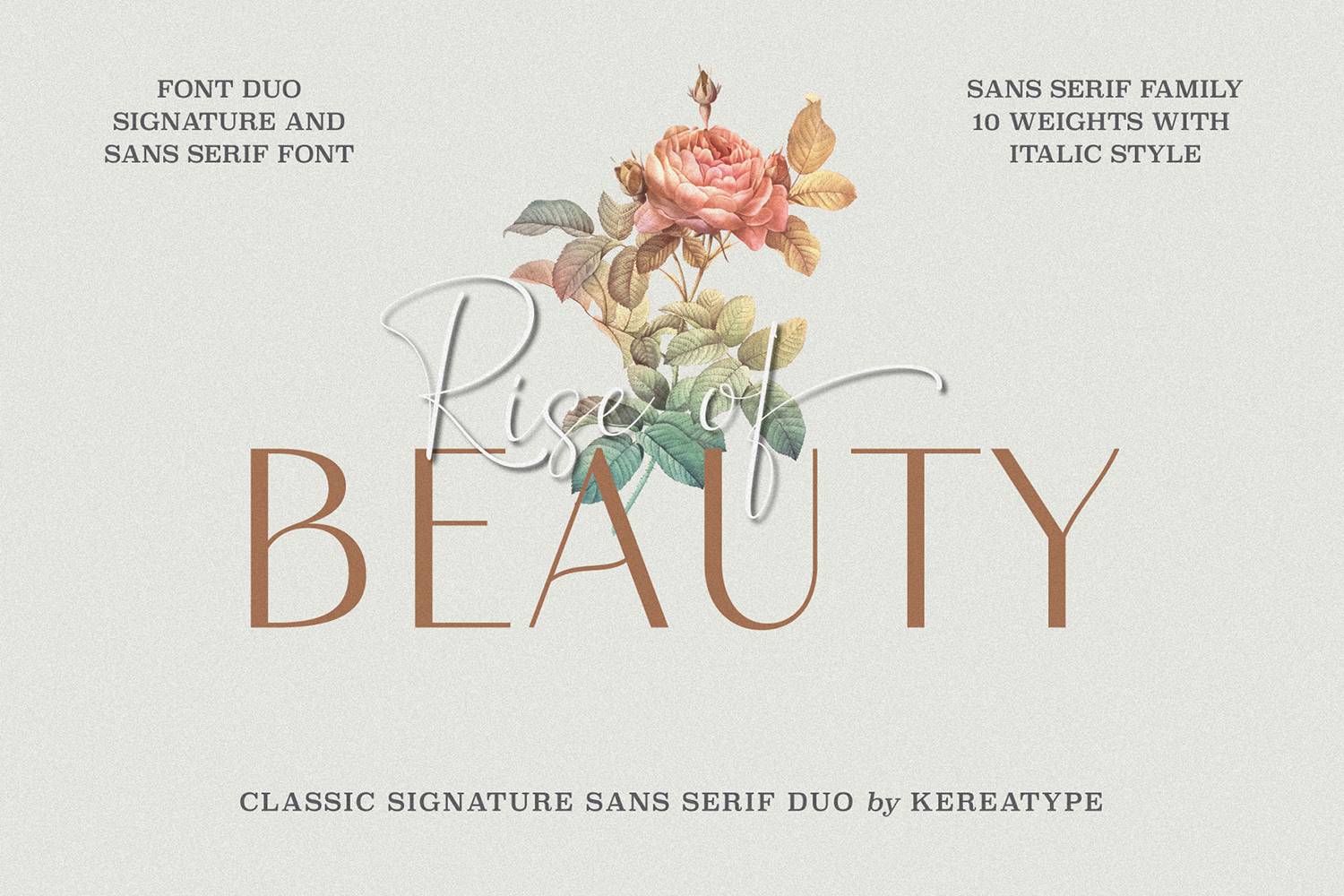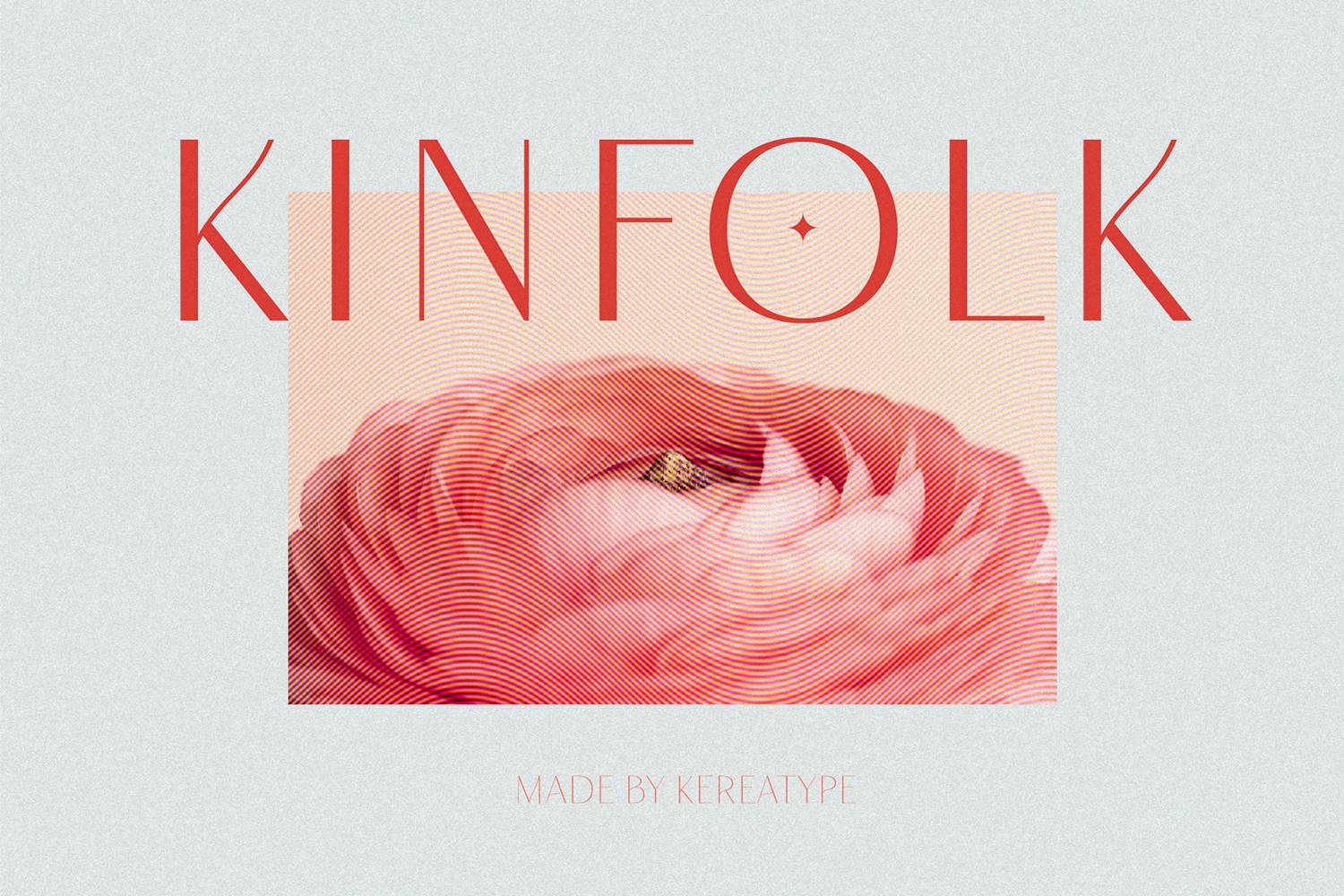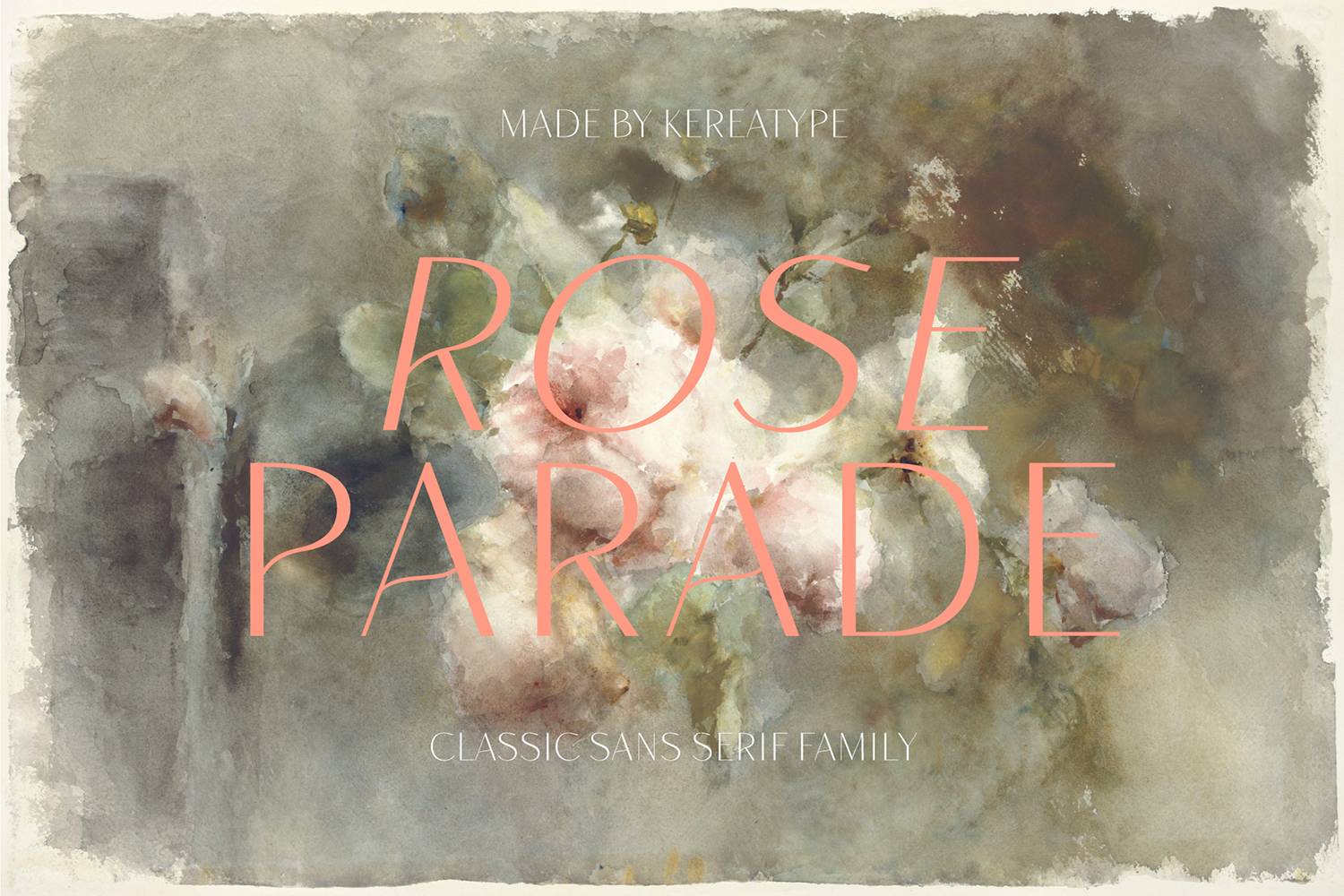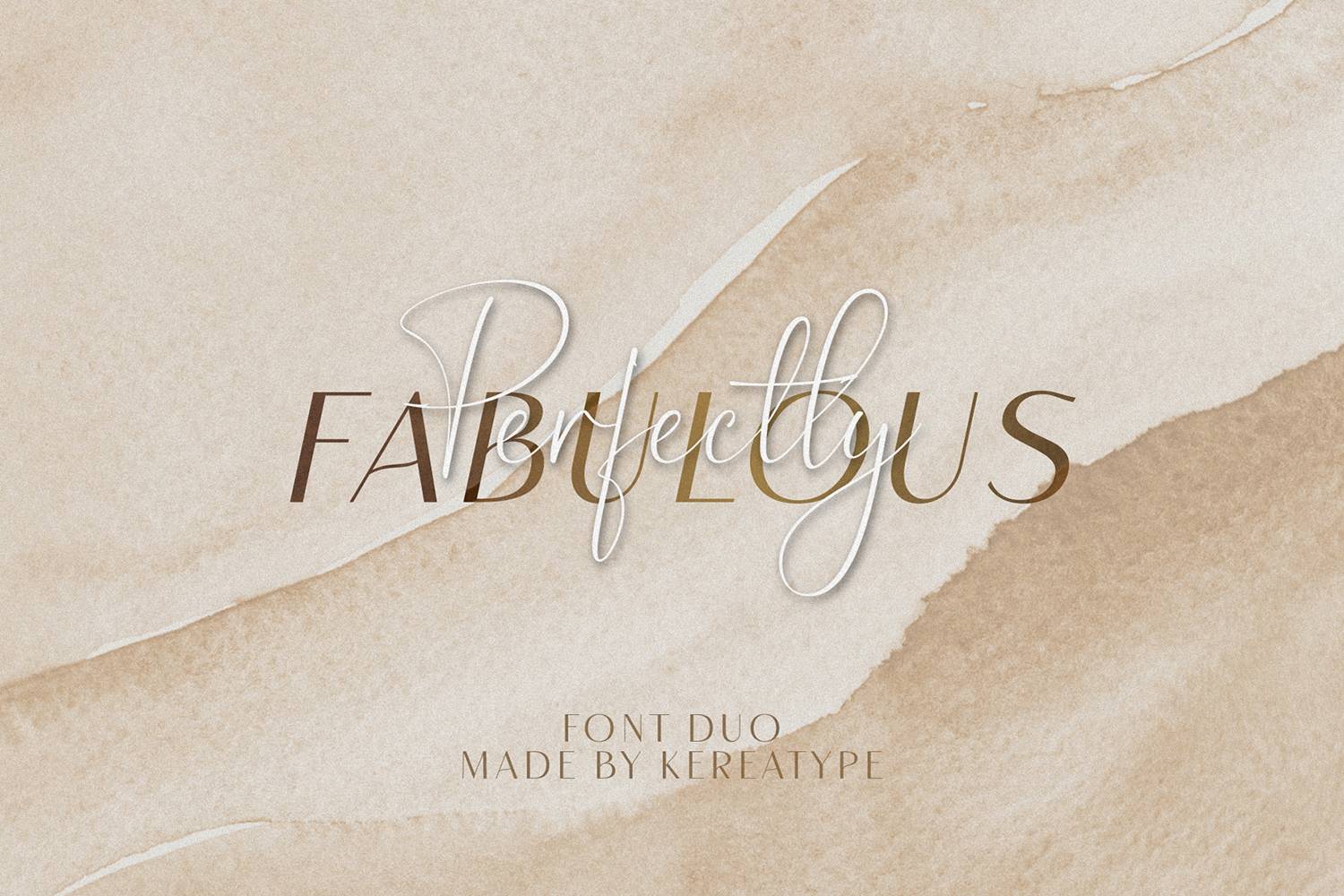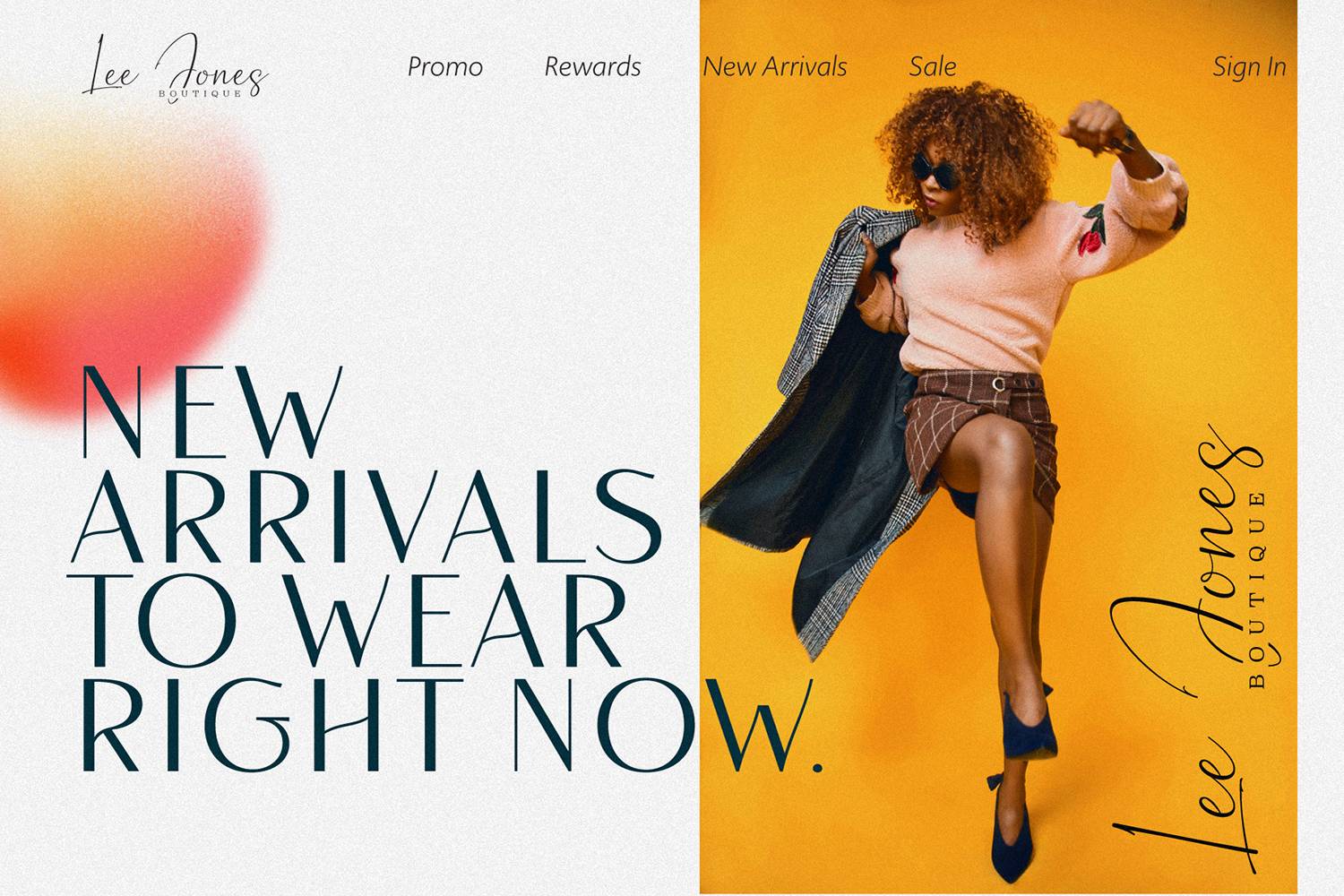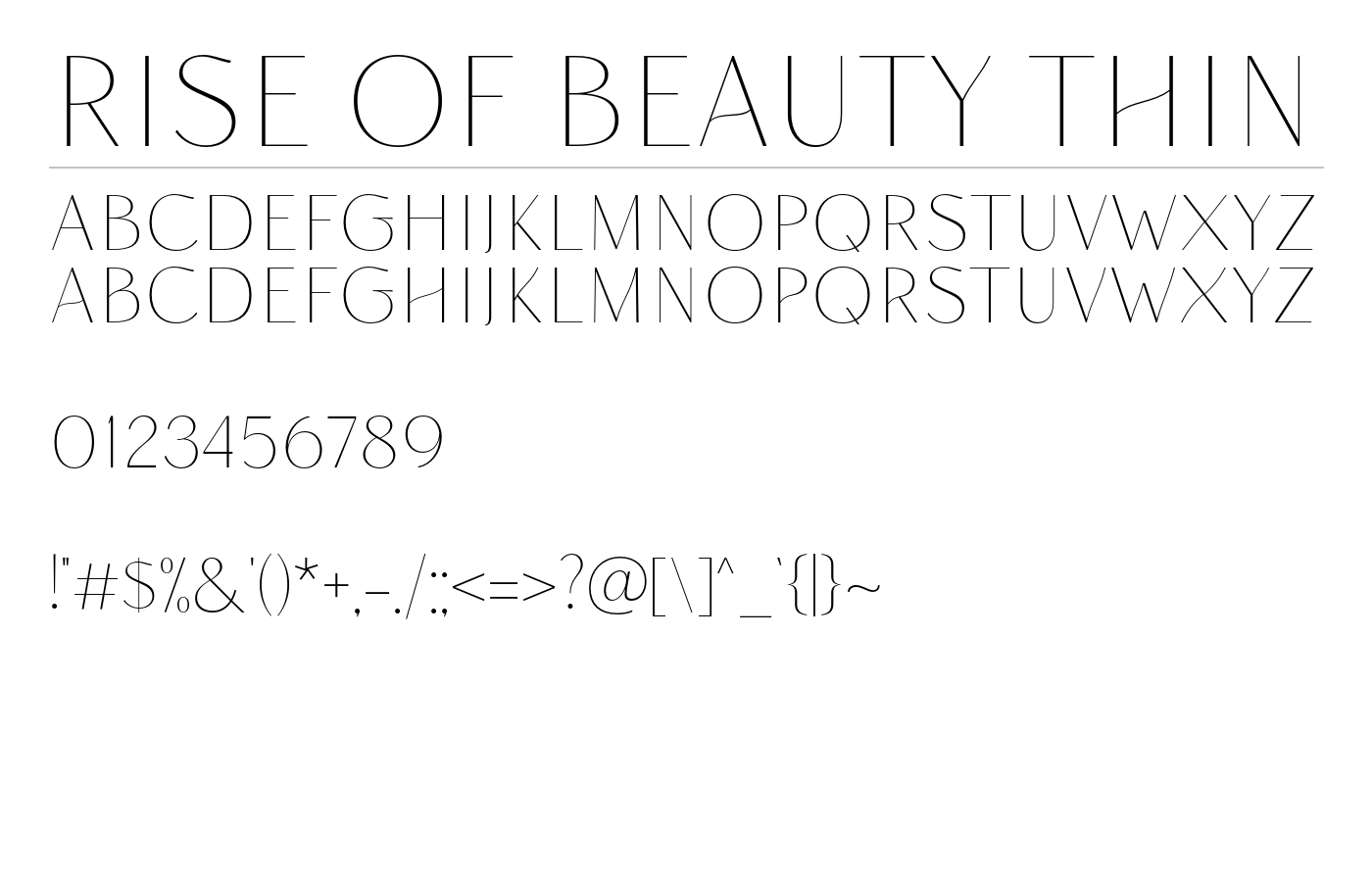
Rise of Beauty is an elegant, ultra-thin sans serif font with a modern and minimalist feel. Its tall, narrow letterforms and subtle stroke variations create a delicate, refined look that works beautifully for fashion branding, luxury logos, and stylish editorial headlines. This font’s clean lines and airy spacing make it ideal for designs that need a sophisticated yet contemporary touch.
Rise of Beauty Font
About Rise of Beauty Font
| Font family | Rise of Beauty Font |
| Release date | 2022-02-21 |
| Designer | Amal Yusuf |
| Trademark | Rise of Beauty is a trademark of Kereatype. |